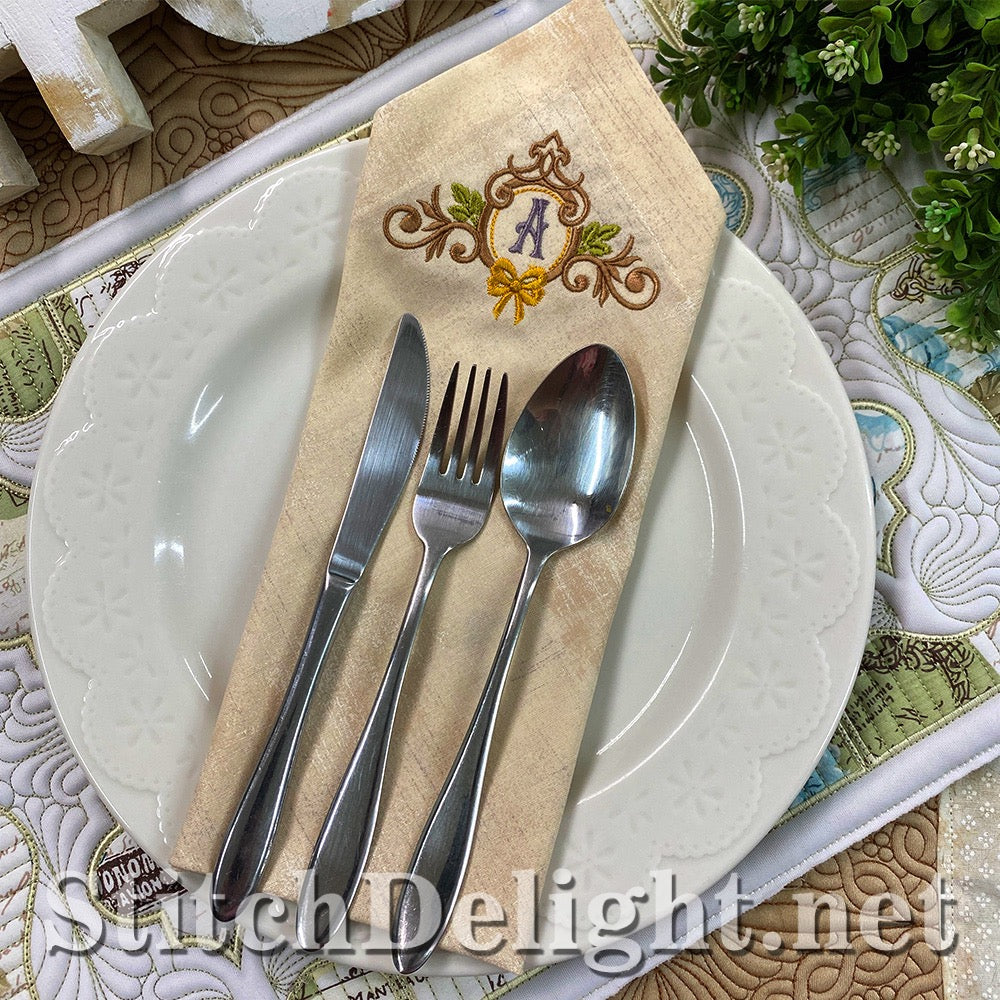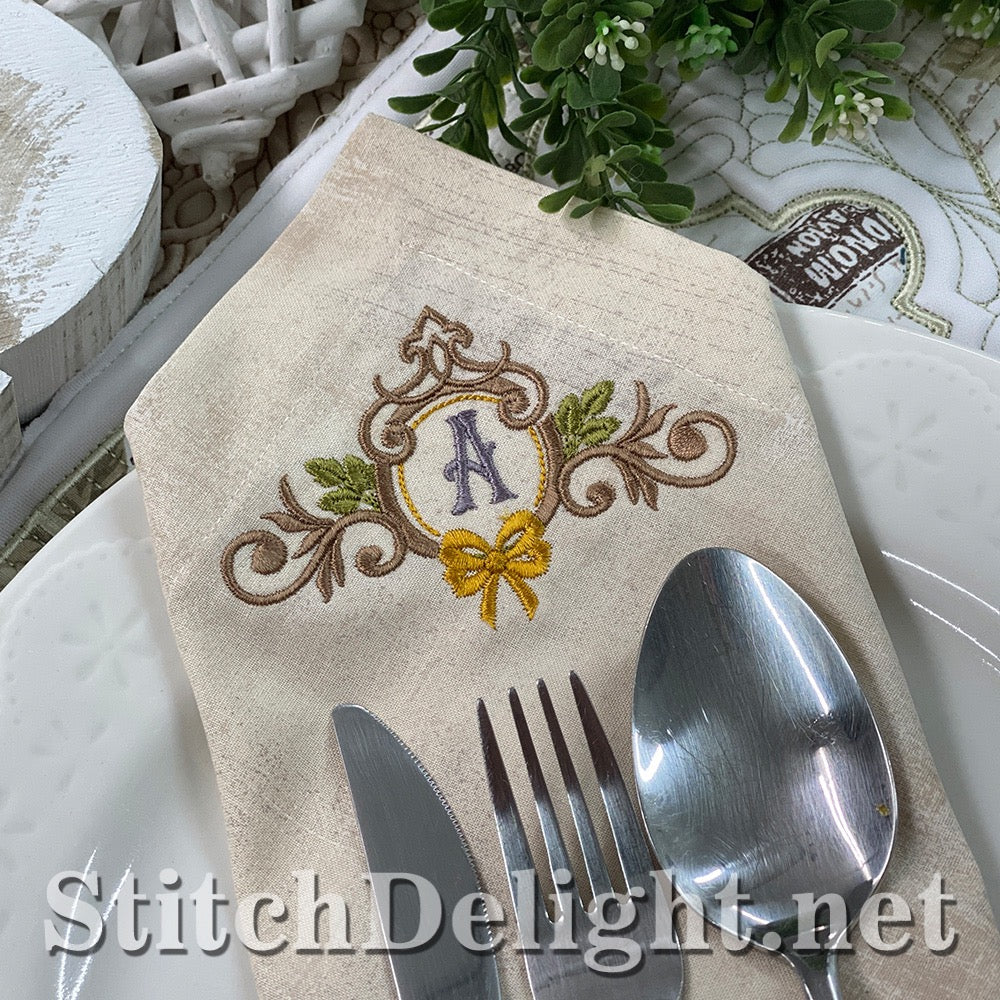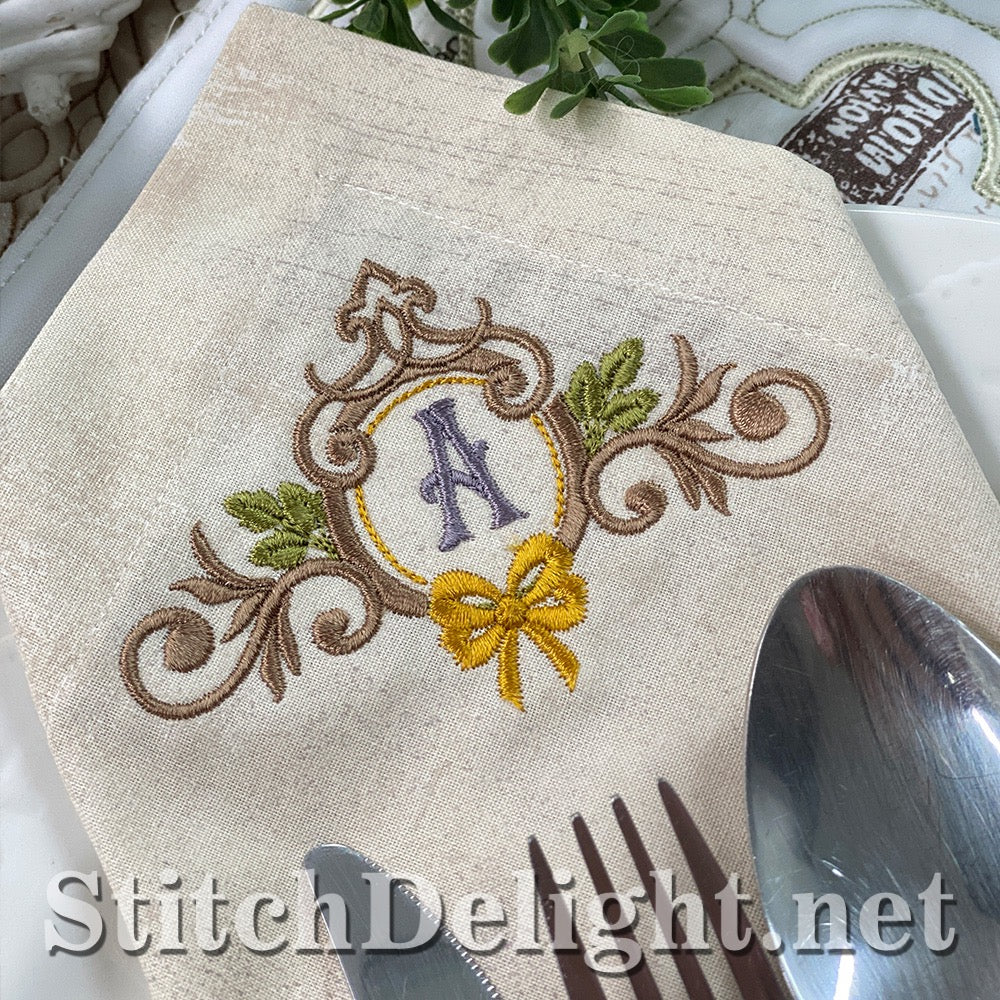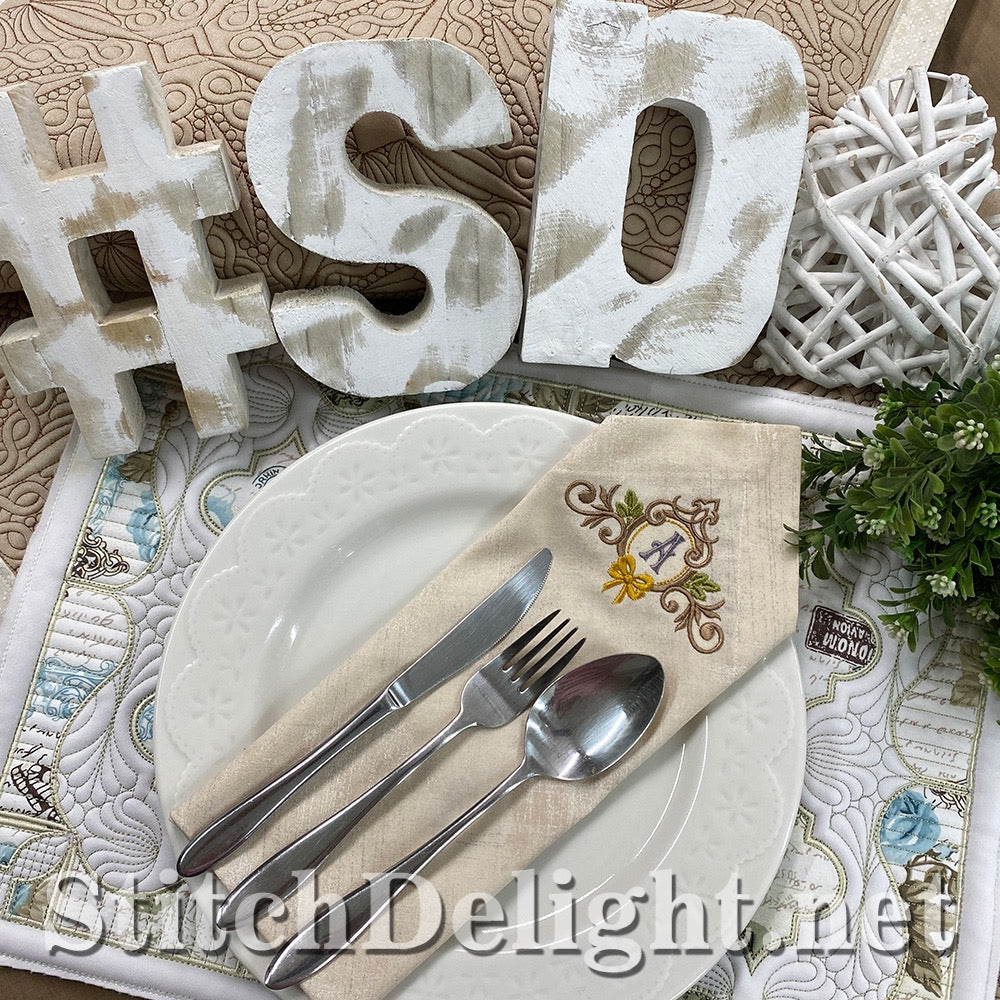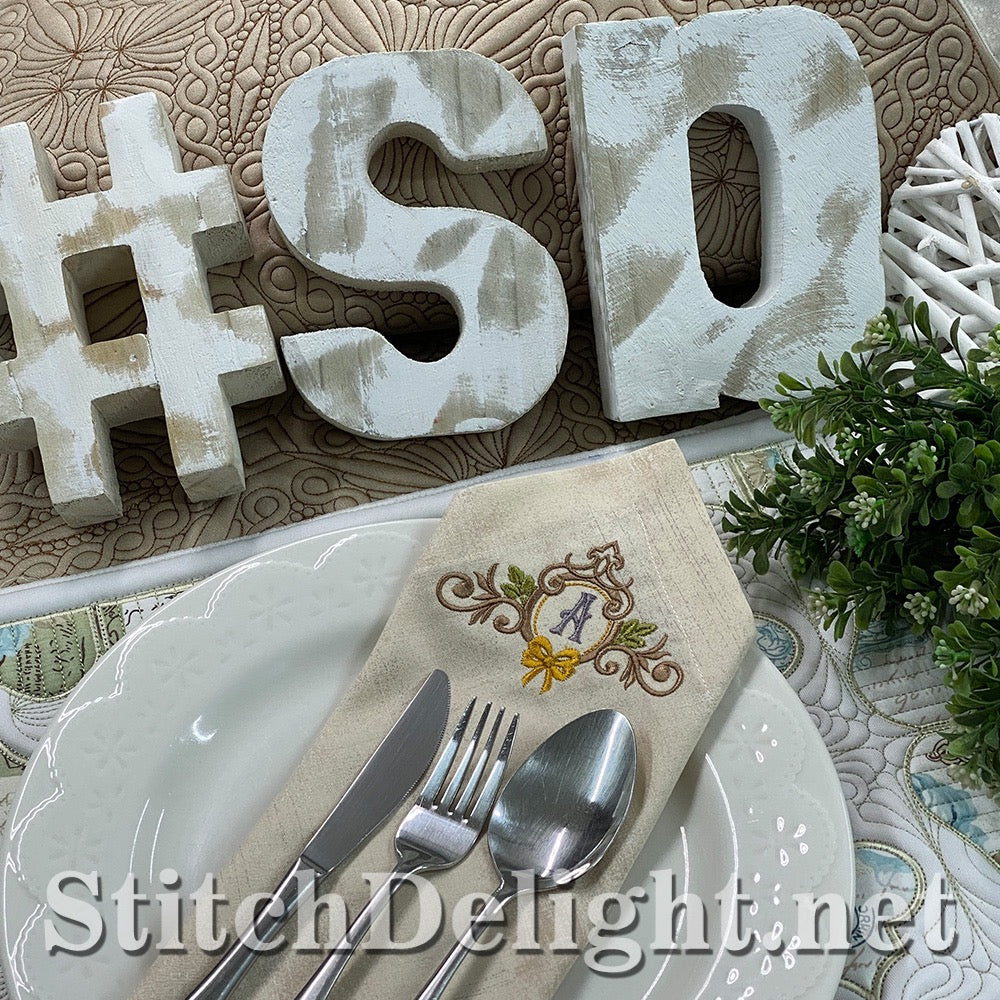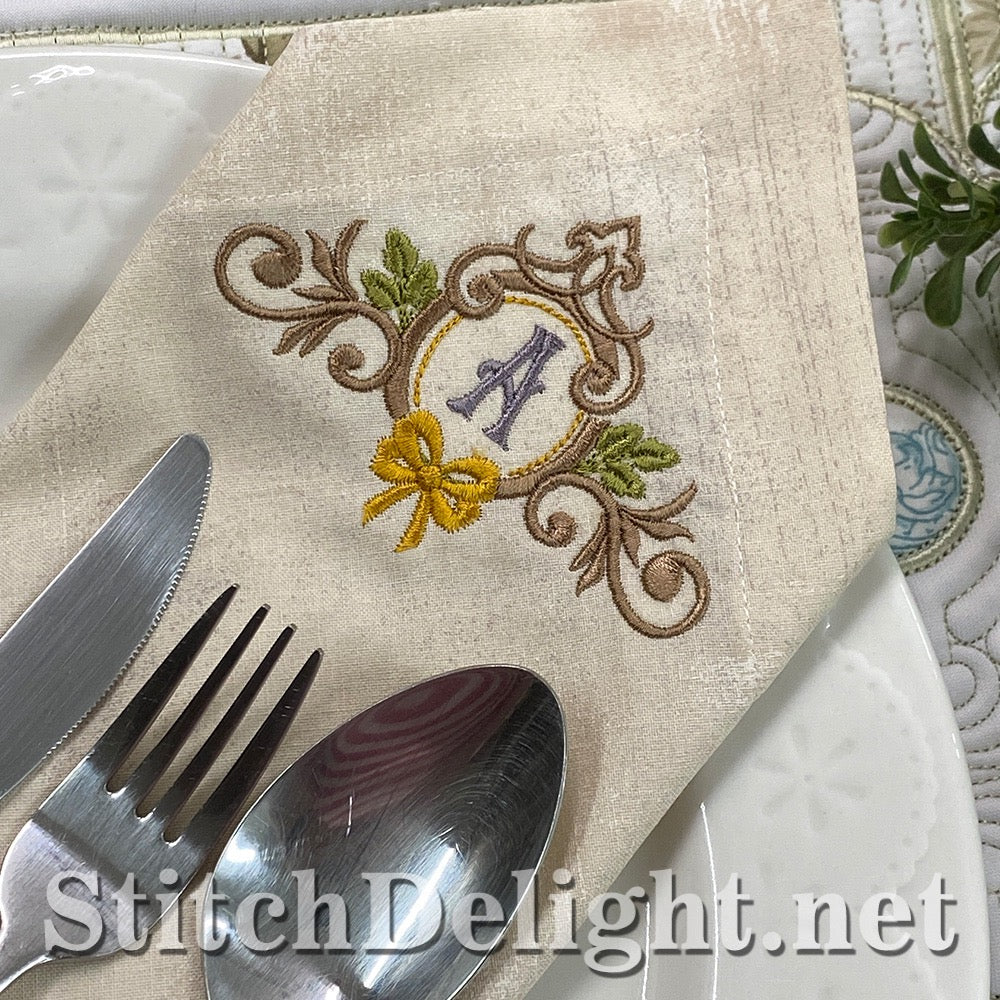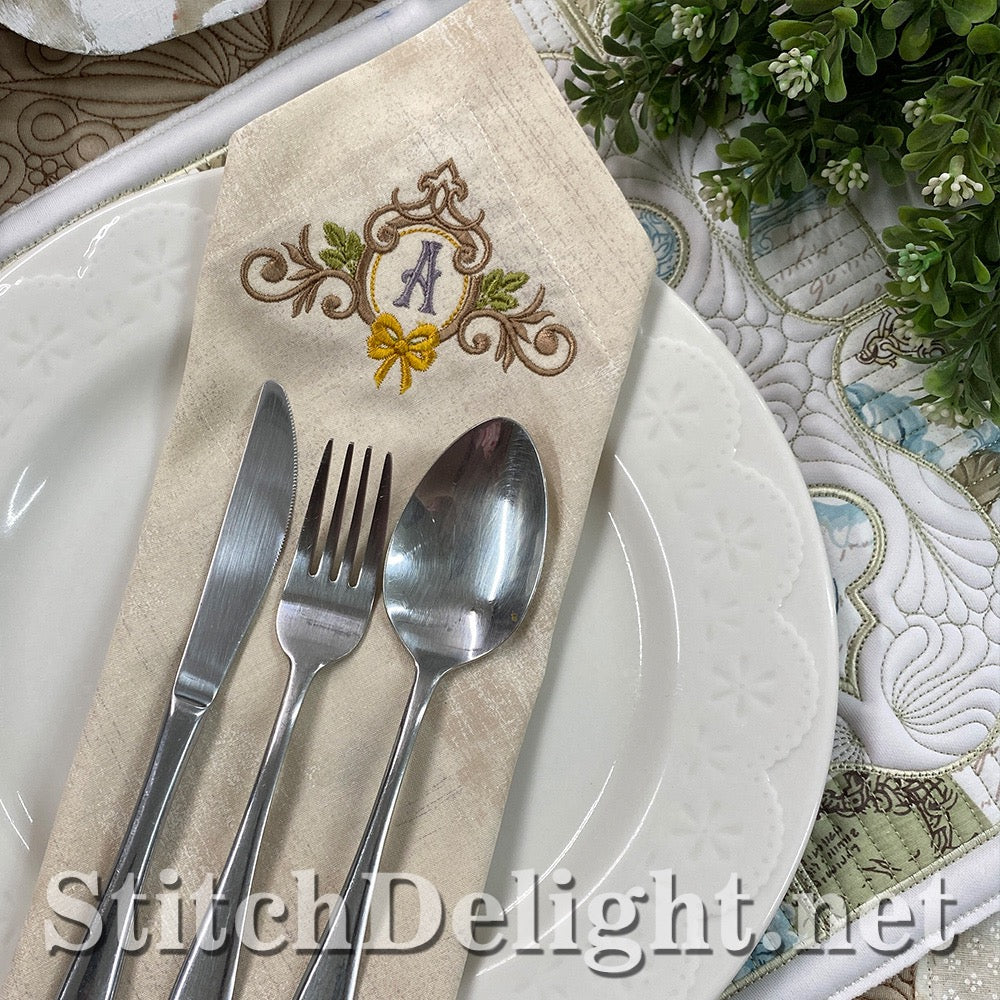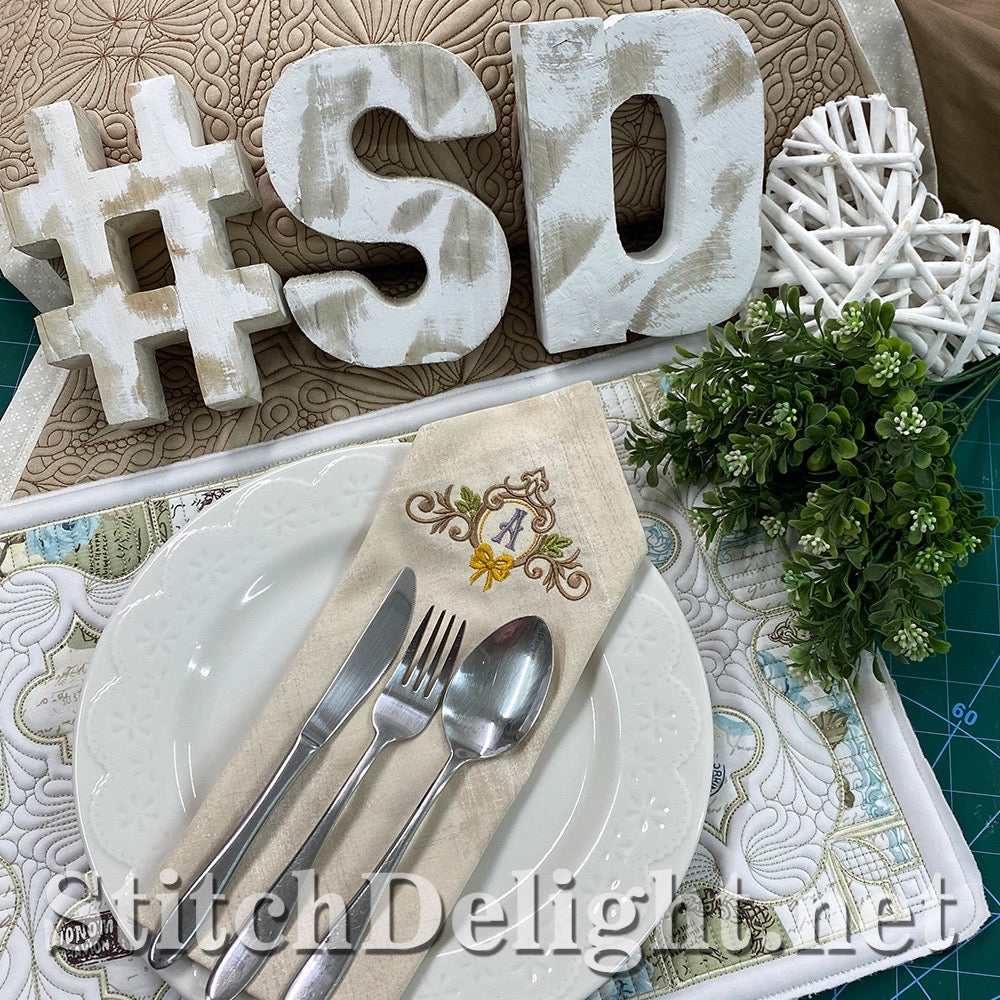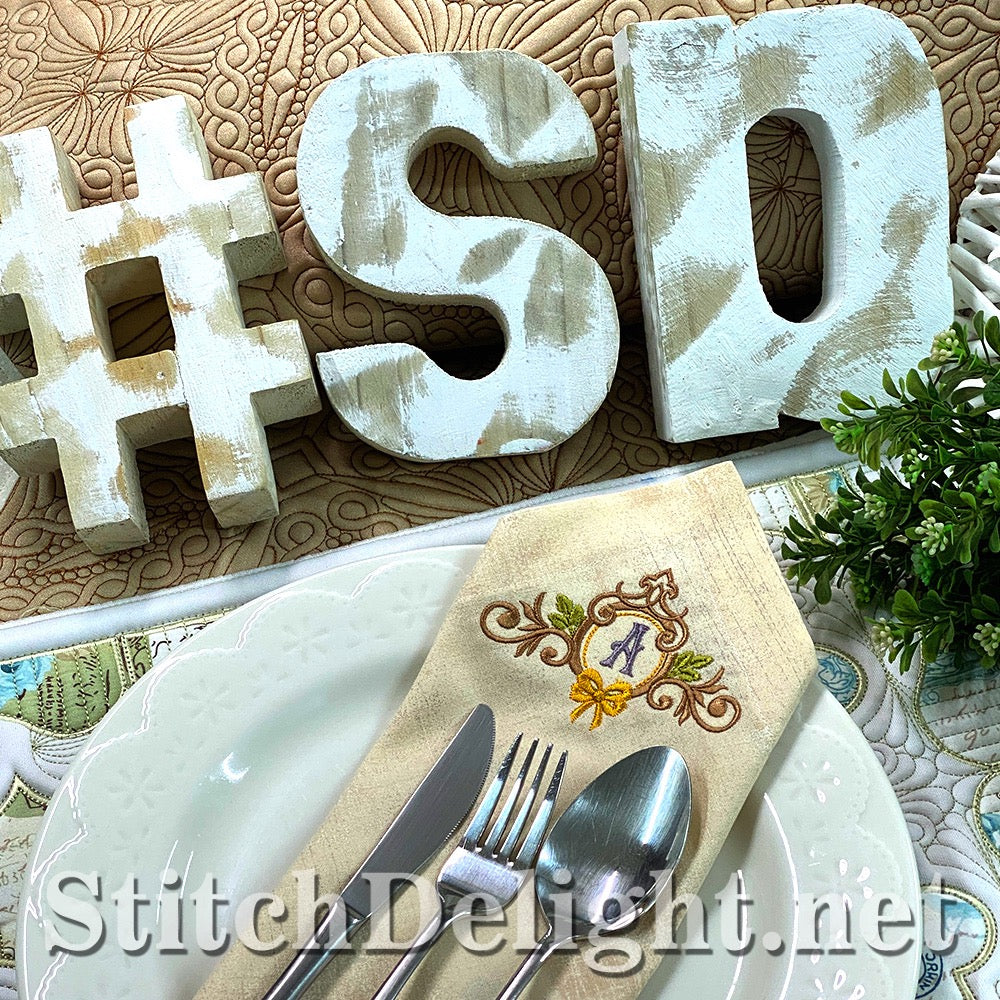
This super elegant font is made to be stitched in your 4x4" hoop and includes BX format for use with Embrilliance. Use with SDS5508 as your matching font to create stunning names and quotes.